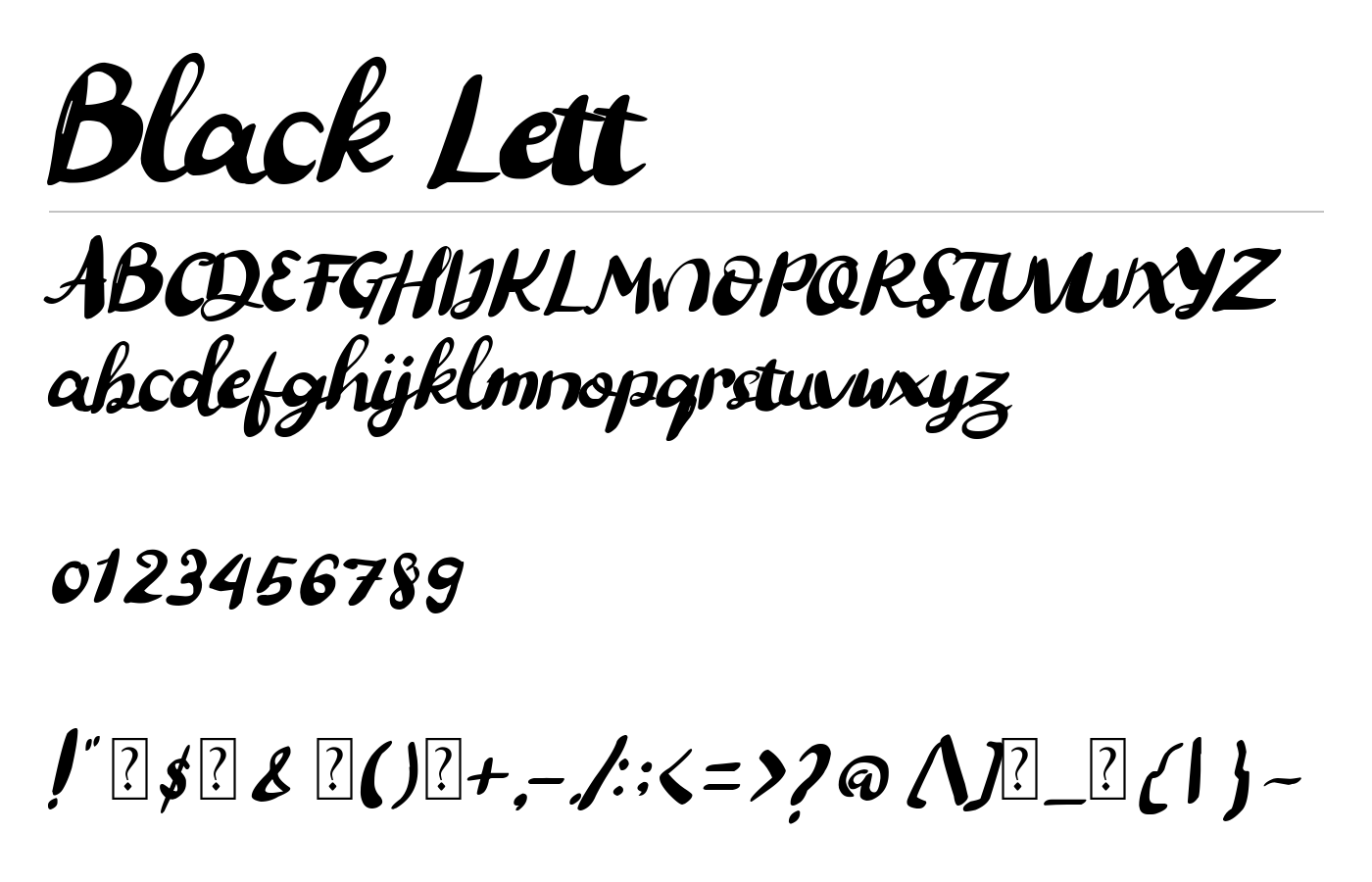
Black Lett is a bold, expressive script font that combines smooth, flowing strokes with a lively brush-like texture, creating a dynamic and artistic feel. Its upright italic style, rounded terminals, and slightly condensed letterforms give it a sense of energy and personality, making it perfect for creative branding, eye-catching headlines, and playful packaging where a handcrafted, modern touch is desired. This font works especially well in designs that seek to convey friendliness and originality with a confident, informal vibe.
Black Lett Font
About Black Lett Font
| Font family | Black Lett Font |
| Designer | Gigih Wiryana |